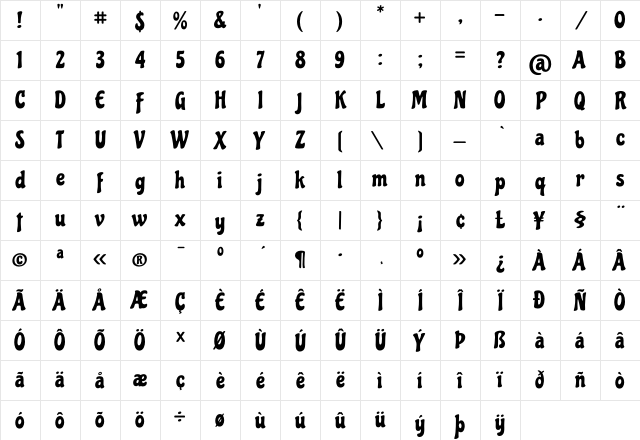
ChicleST is a composed and adaptable typeface that performs quietly and consistently across a wide range of design contexts.
Who designed the ChicleST Regular font?
This font was published by Angel koziupa and Alejandro Paul. Check the technical specs section for copyright and designer details.